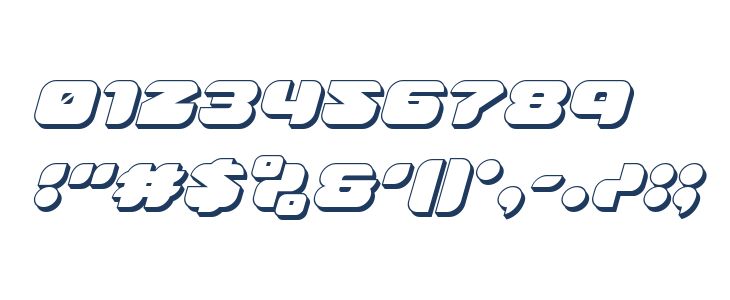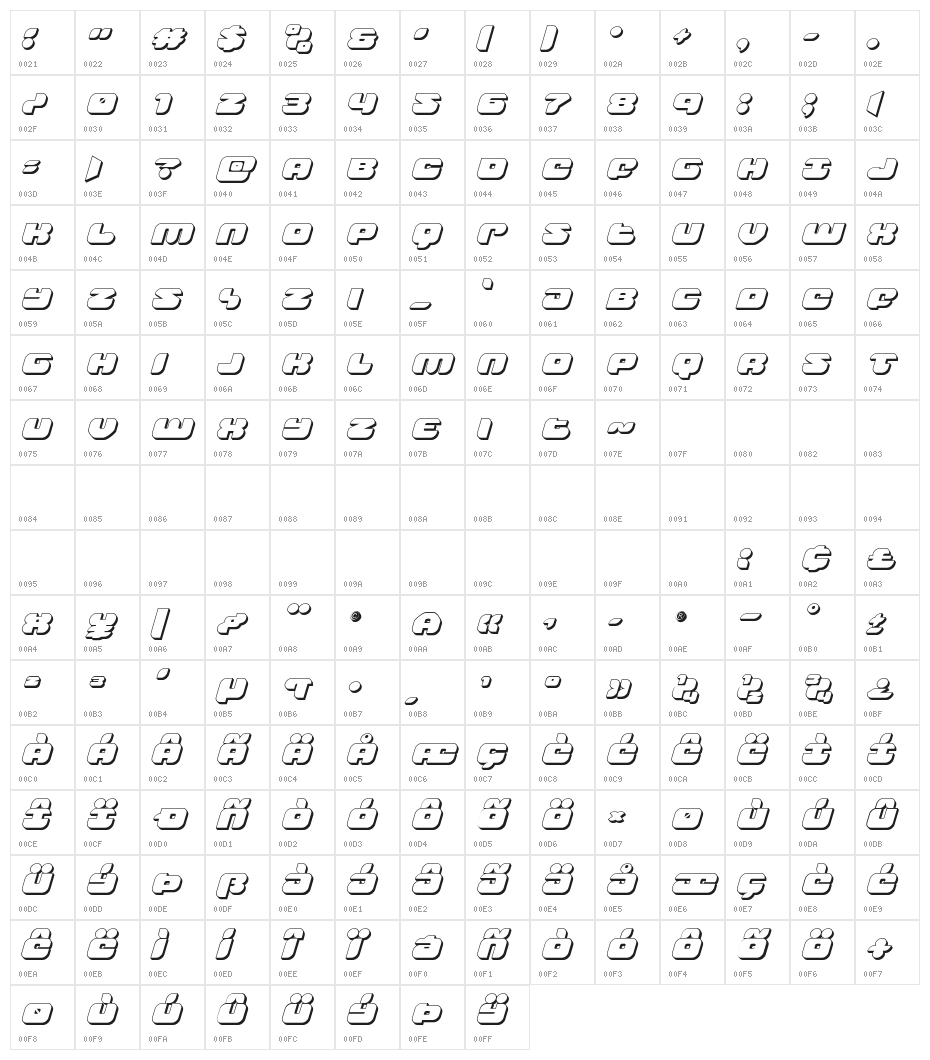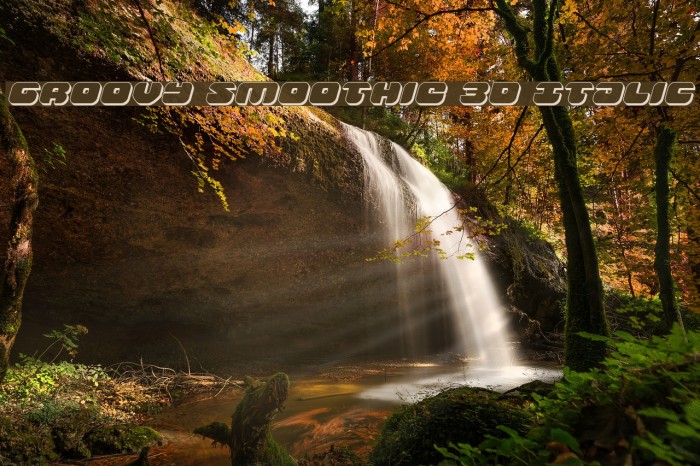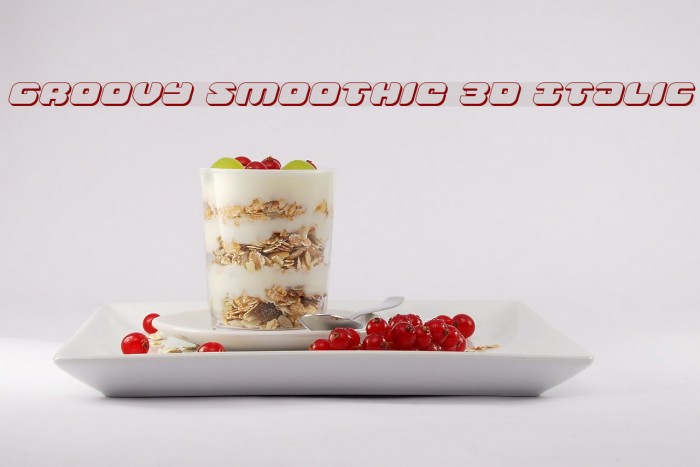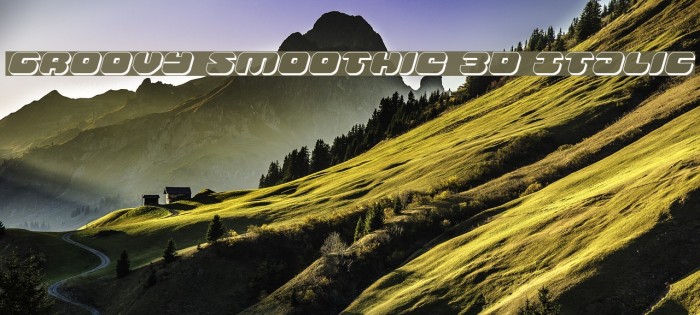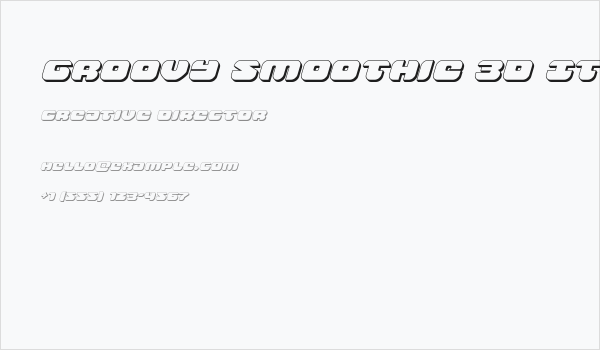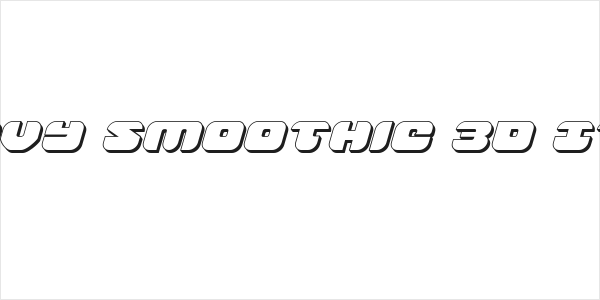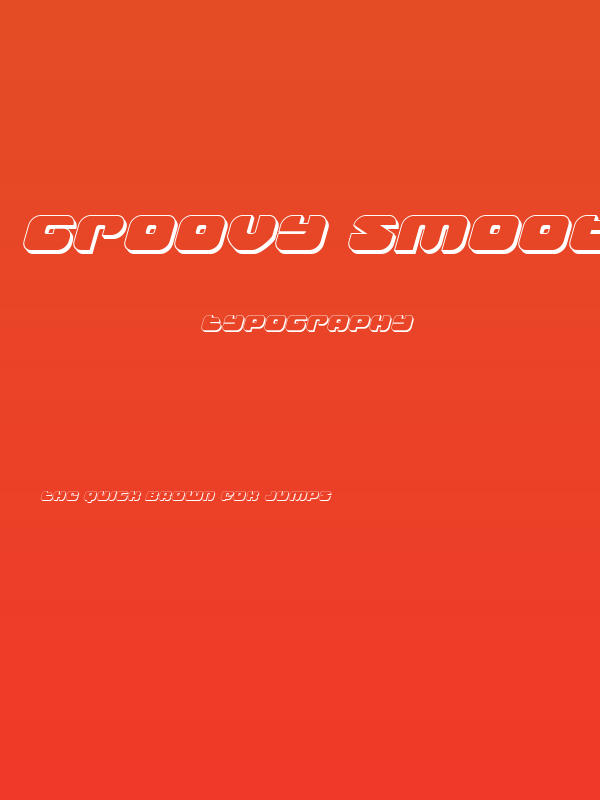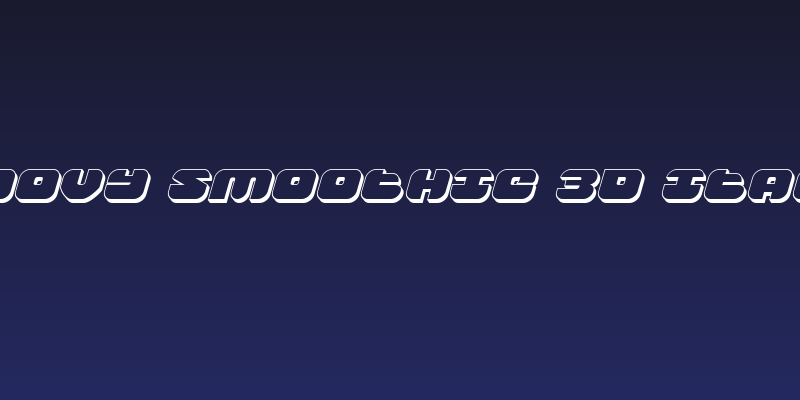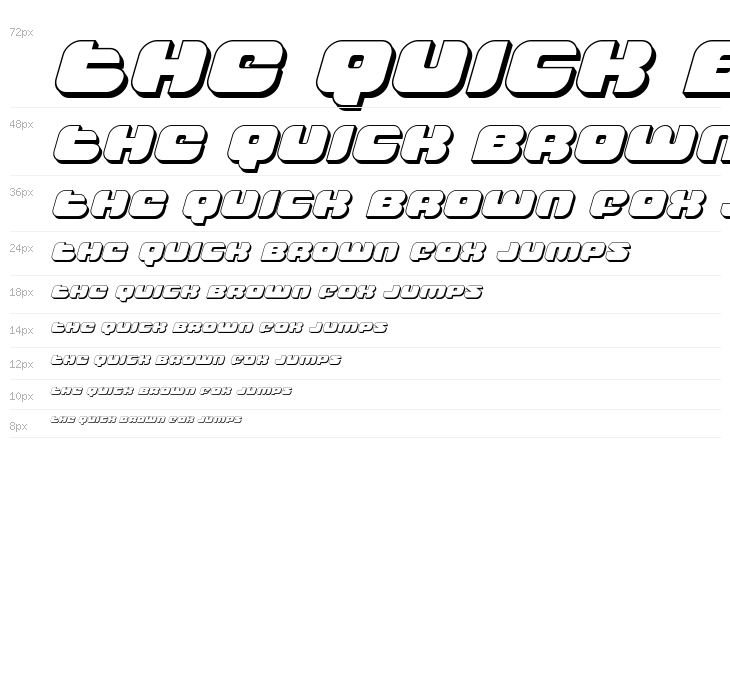
Groovy Smoothie 3D Italic Font
Groovy Smoothie 3D Italic Description
This font features a bold, three-dimensional appearance with smooth, rounded edges that give it a playful and dynamic look. The letters are italicized, adding a sense of motion and fluidity. Each character is outlined, enhancing the 3D effect and providing a sense of depth. The font's style is reminiscent of retro or vintage designs, making it suitable for projects that require a touch of nostalgia. The characters are evenly spaced, ensuring readability while maintaining a cohesive visual flow. The overall design is both eye-catching and versatile, suitable for a variety of creative applications.
| Overall Style | Retro, Decorative |
| Proposed Projects | Ideal for posters, logos, video game graphics, and retro-themed designs. |